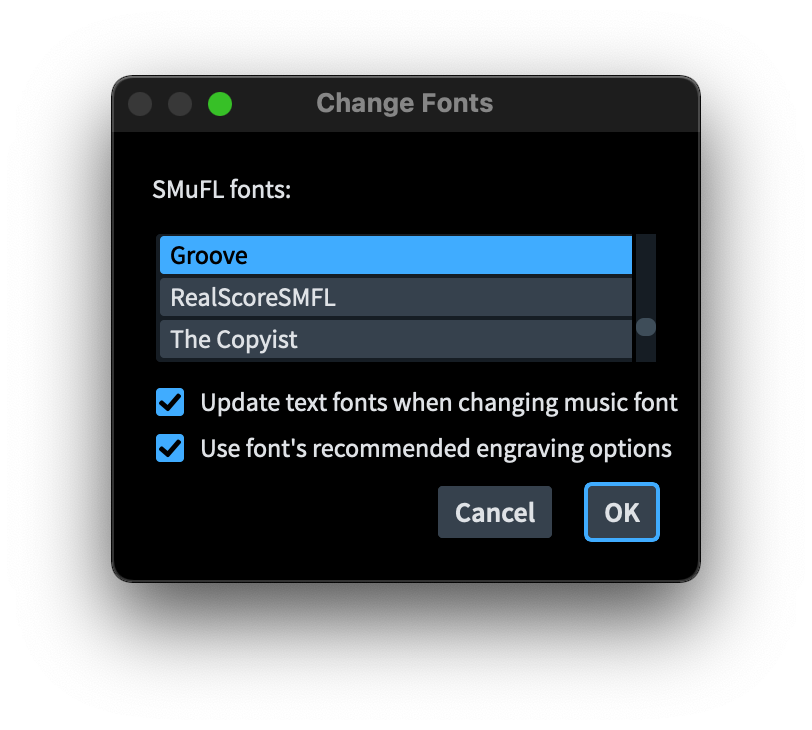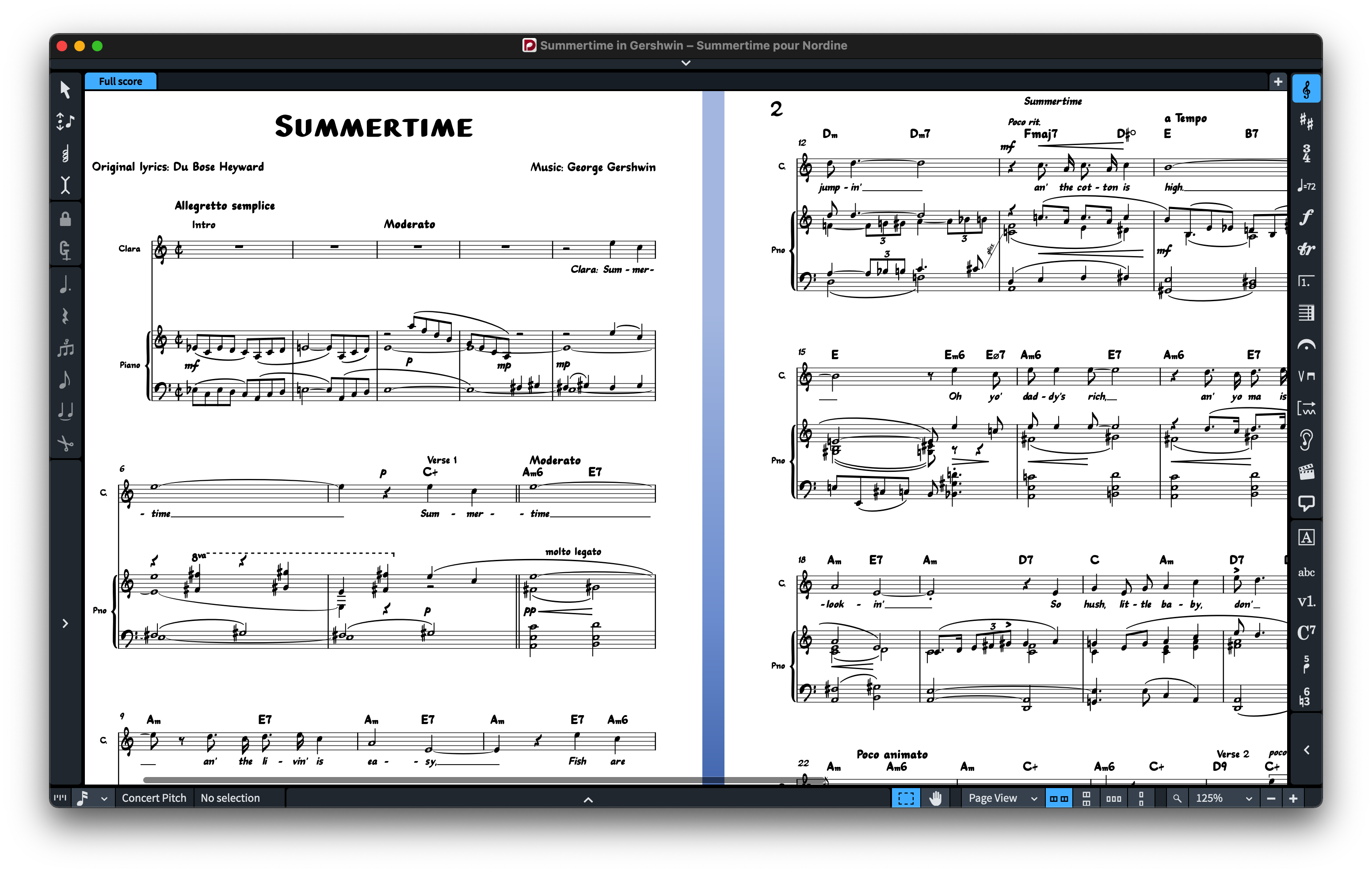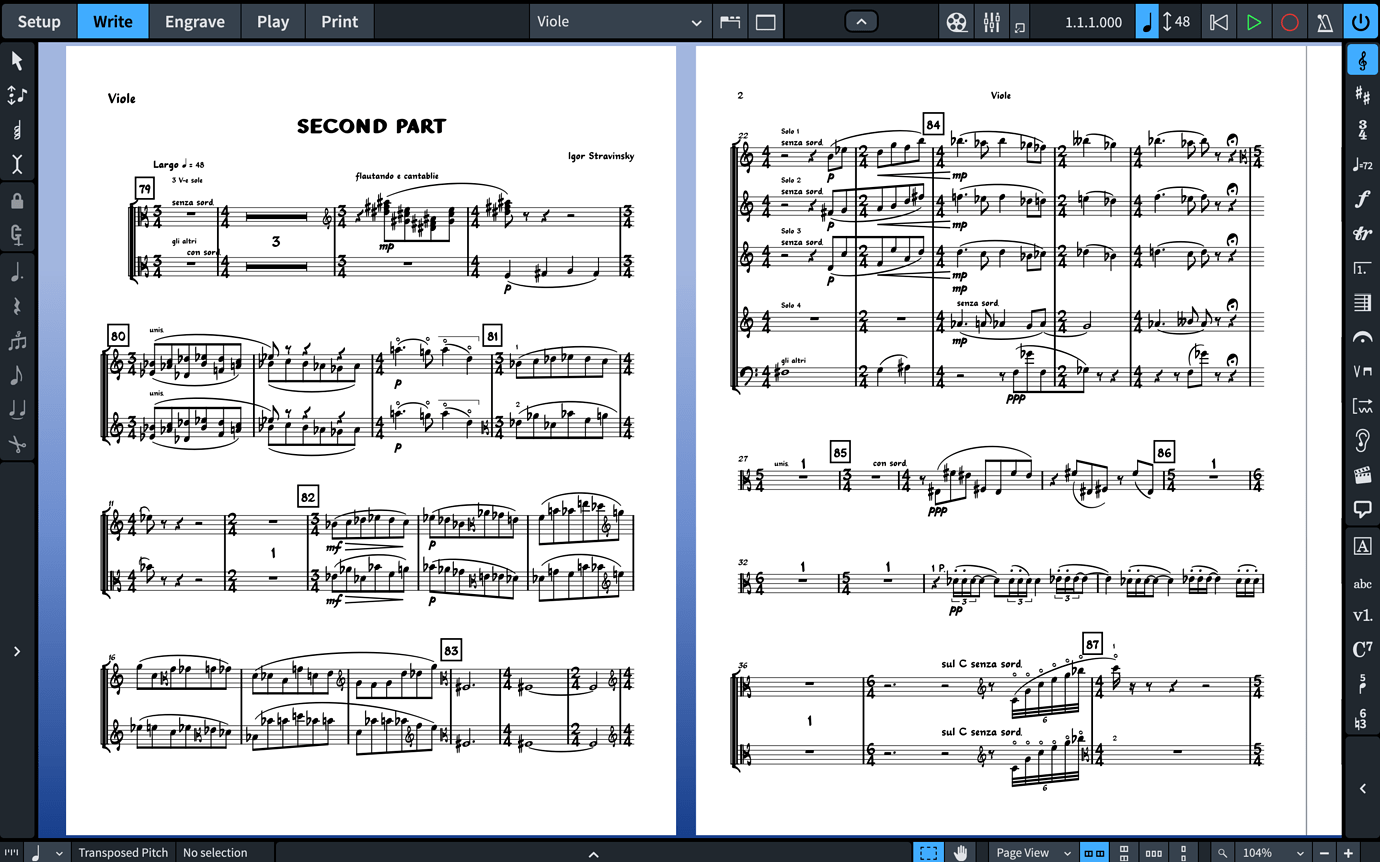
Groove (SMuFL) Font
10 fonts for a Professional Handwritten Jazz Scores!
GROOVE FONTS FOR DORICO, FINALE V27, & MUSESCORE V4.6 FEATURE 2 MUSIC SMUFL COMPLIANT MUSIC FONTS AND  8 JAZZY TEXT FONTS.
Groove is handwritten music and text fonts for Dorico & Finale v27 with lots of personality. Nothing else will get you as close to the look and feel of the classic Broadway scores in the style of West Coast copyists. Groove fonts feature more than 1400 music symbols and work as an alternative to Bravura, Petaluma fonts, Finale Maestro, Finale Jazz, or Finale Broadway fonts.